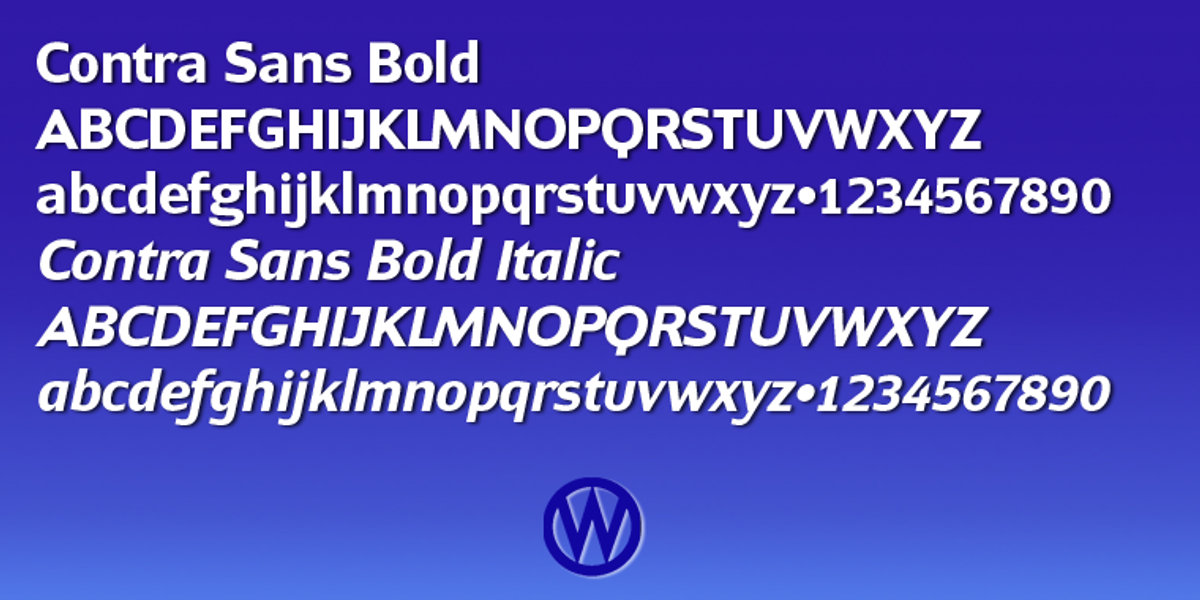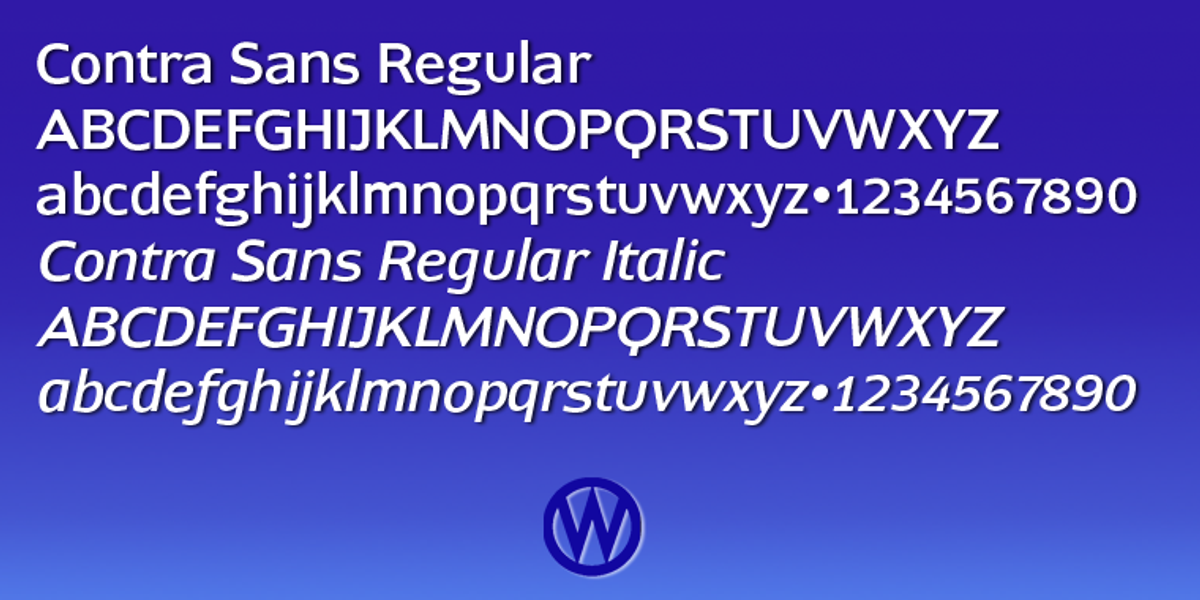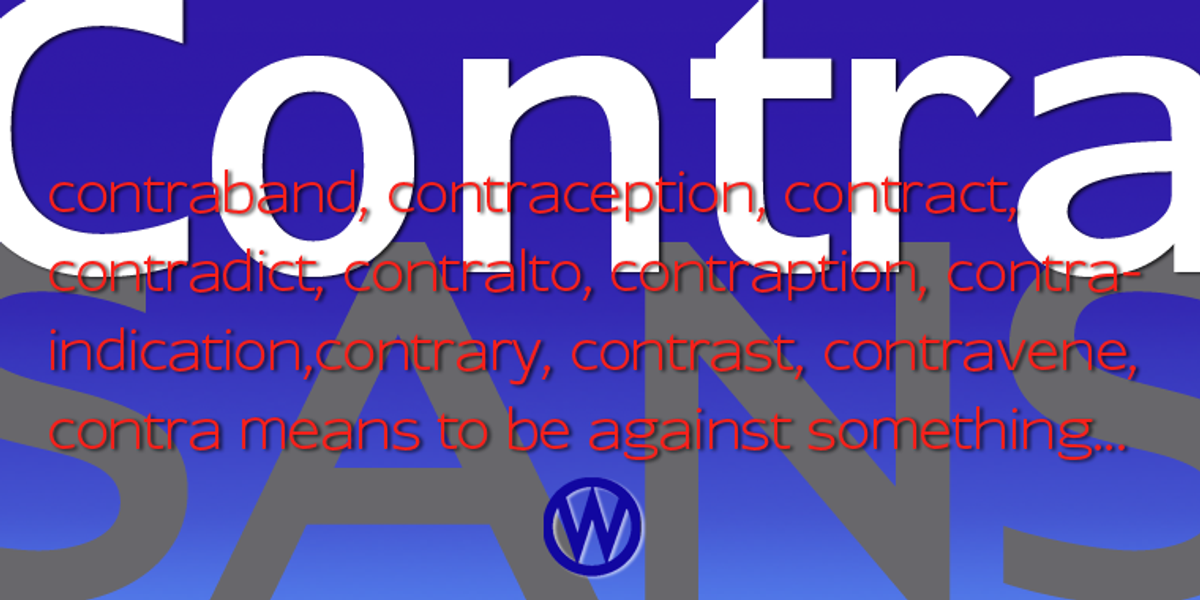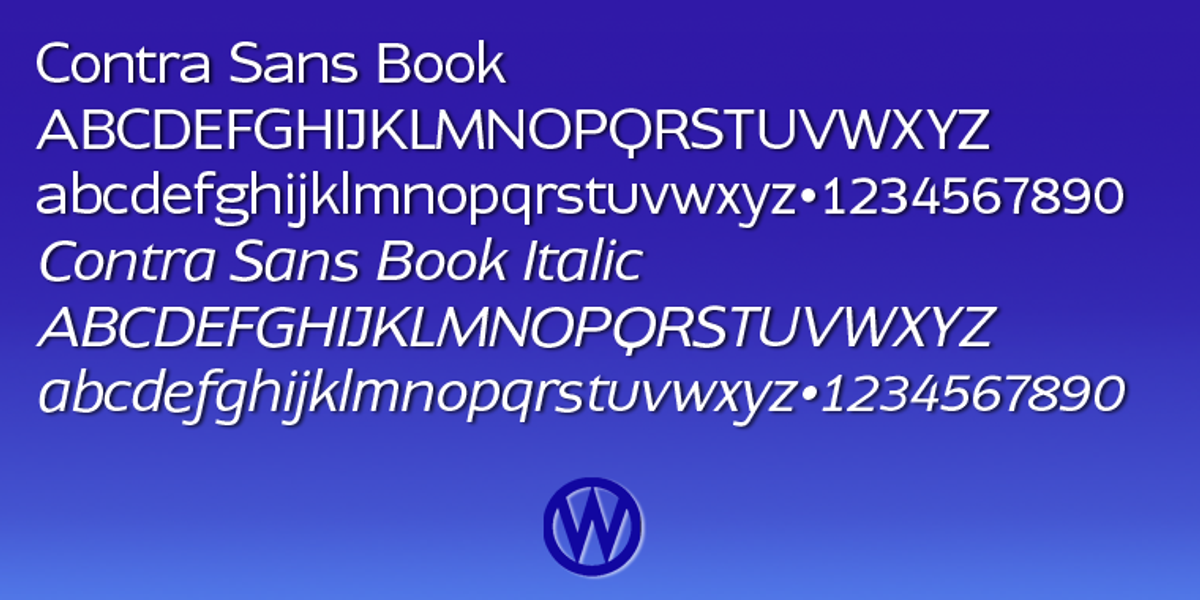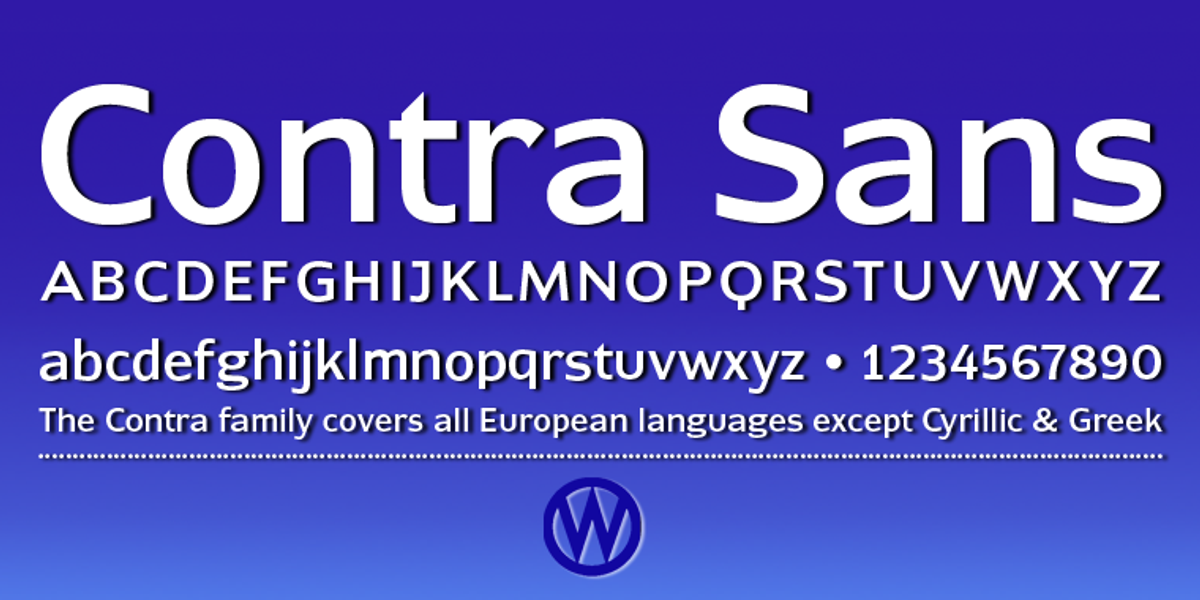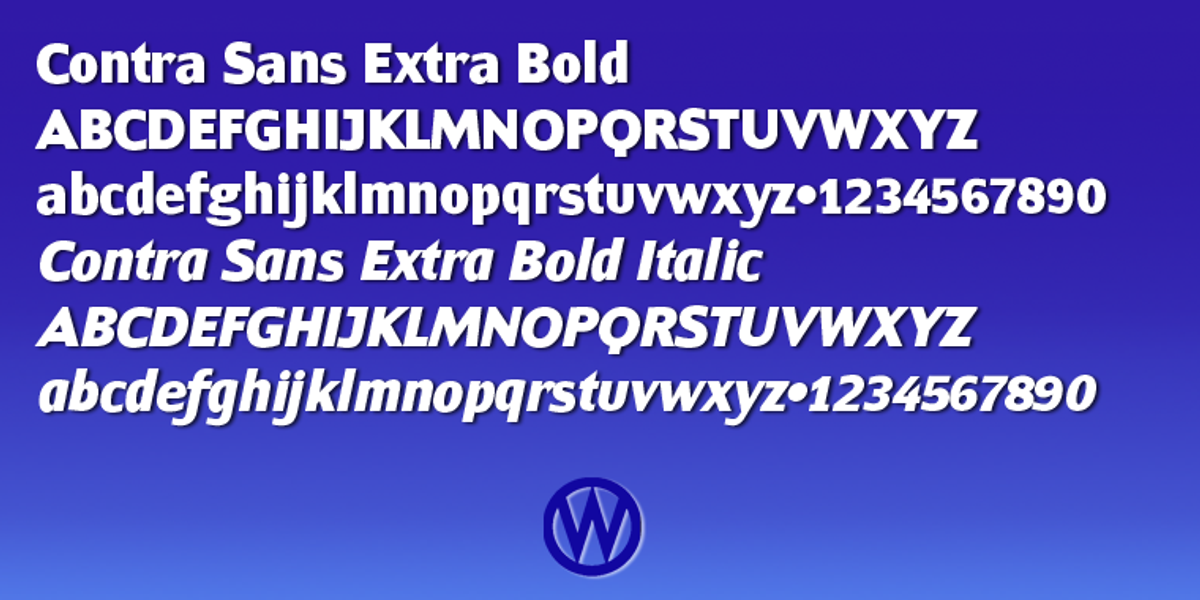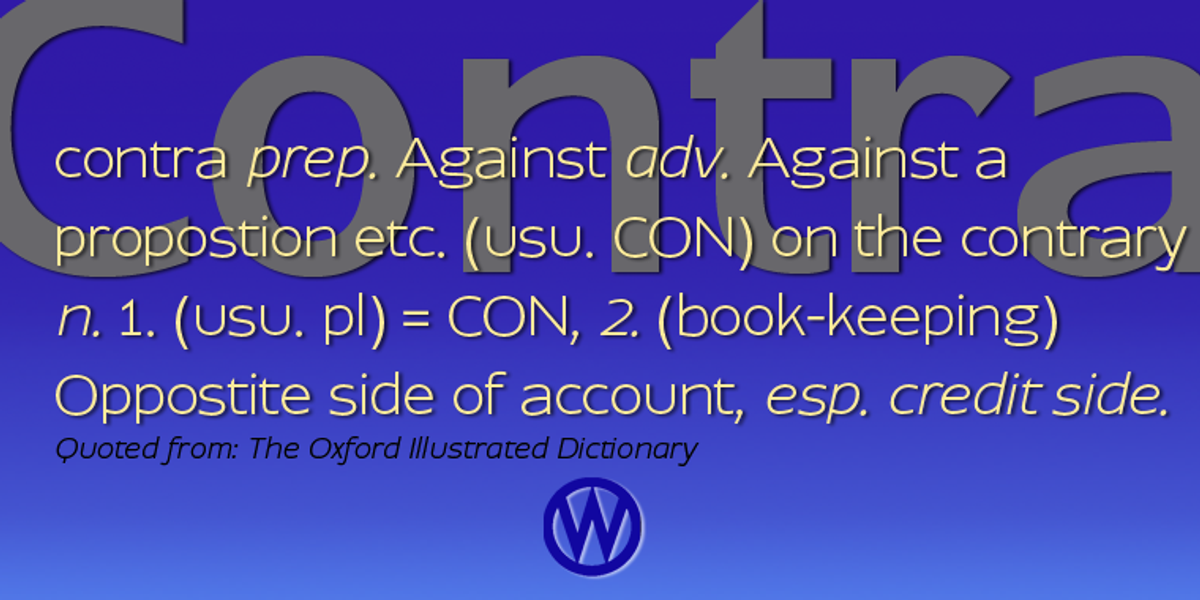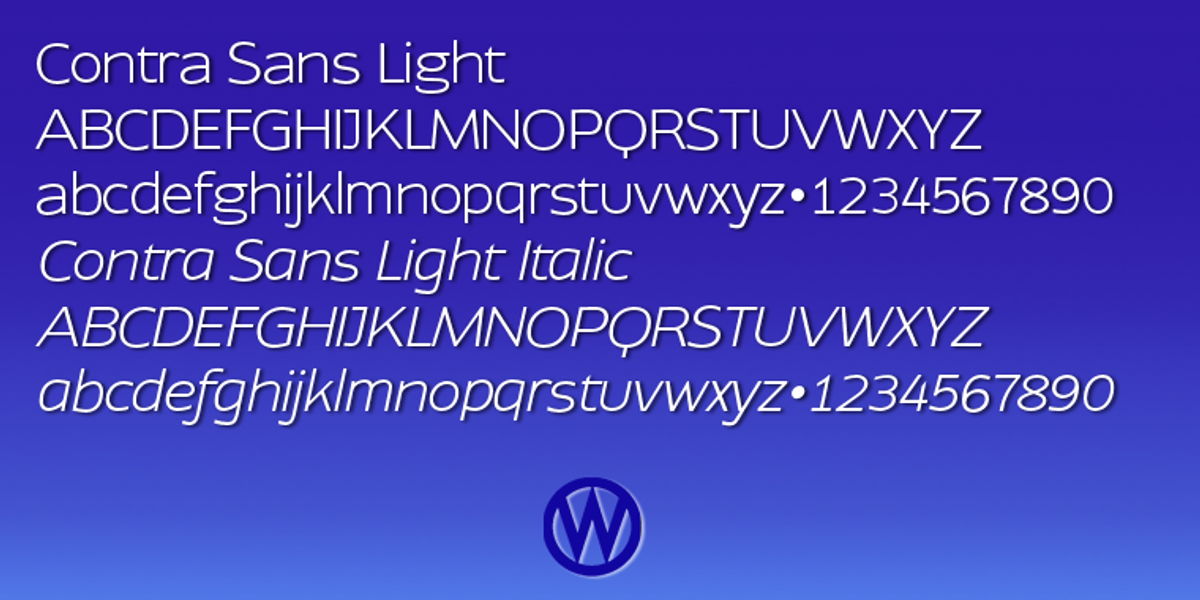
Contra Sans
Contra Sans is a humanist sans-serif font designed for readability. It features balanced contrast between thick and thin strokes, making it suitable for both headlines and body text. Its contemporary aesthetic and neutral personality make it versatile for a range of applications.